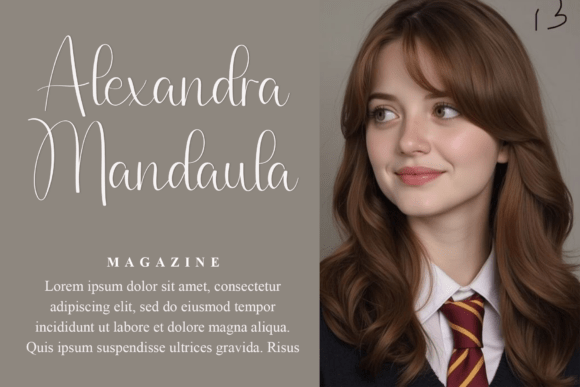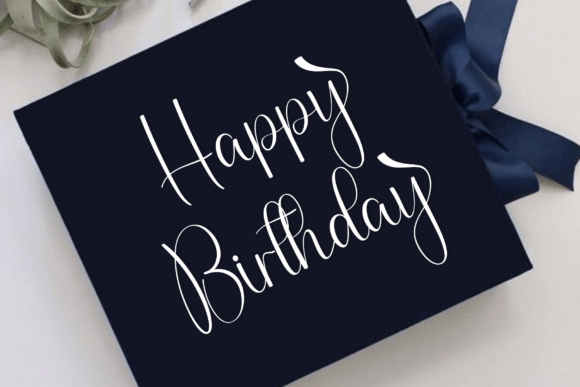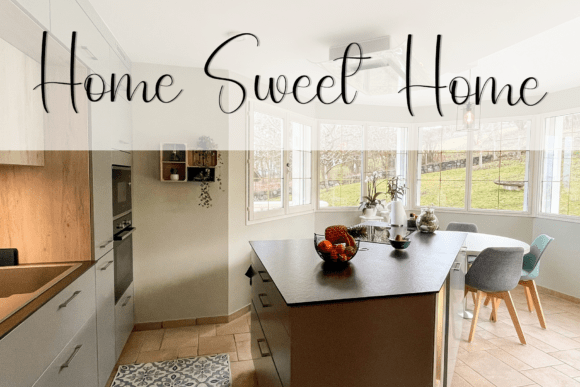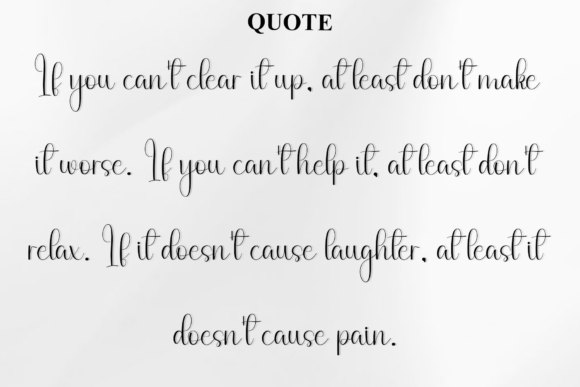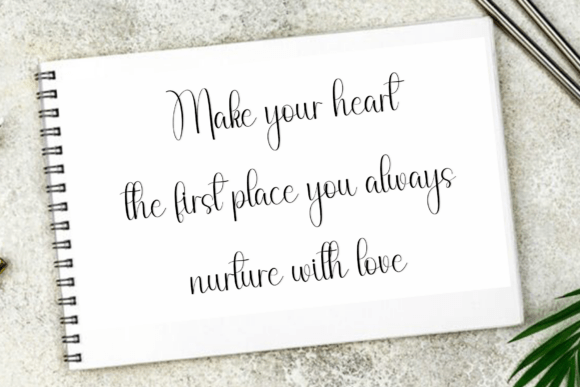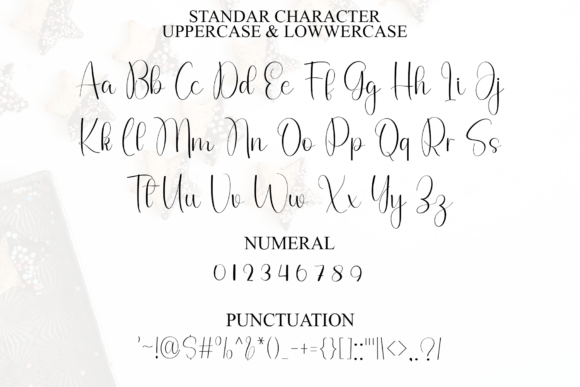
Introducing Cutie Baby Font: The Ultimate Holiday Typeface
The holiday season is upon us, and what better way to get into the spirit than with a festive and merry typeface? Look no further than Cutie Baby Font, a decorative font that captures the magic and wonder of the holiday season. With its whimsical flair and enchanting elements, Cutie Baby Font is perfect for adding a touch of nostalgia and cheer to your designs.
A Festive Font for the Holiday Season
Cutie Baby Font is a carefully crafted typeface that embodies the spirit of the holiday season. Its decorative elements and whimsical design make it perfect for a variety of holiday-themed projects, from greeting cards and gift tags to festive posters and social media graphics. Whether you’re a designer, crafter, or simply someone who loves the holiday season, Cutie Baby Font is sure to bring a smile to your face and a touch of magic to your designs.
Key Features of Cutie Baby Font
- Decorative Elements: Cutie Baby Font features a range of decorative elements, including intricate swirls, holly leaves, and snowflakes, that add a touch of festive flair to your designs.
- Whimsical Design: The font’s whimsical design makes it perfect for creating holiday-themed projects that are both fun and festive.
Cutie Baby Font is perfect for a variety of holiday projects, including:
- Greeting Cards: Add a touch of festive flair to your holiday greeting cards with Cutie Baby Font.
- Gift Tags: Create custom gift tags with Cutie Baby Font and add a personal touch to your gifts.
- Holiday Posters: Use Cutie Baby Font to create festive posters and social media graphics that capture the spirit of the holiday season.
- Crafting Projects: Cutie Baby Font is perfect for a variety of crafting projects, including scrapbooking, paper crafting, and more.
Why Choose Cutie Baby Font?
There are many fonts to choose from, but Cutie Baby Font stands out for its unique and festive design. Here are just a few reasons why you should choose Cutie Baby Font for your holiday projects:
- Unique Design: Cutie Baby Font features a unique and festive design that is sure to capture the spirit of the holiday season.
- Perfect for Holiday Projects: Cutie Baby Font is perfect for a variety of holiday projects, including greeting cards, gift tags, holiday posters, and more.
Cutie Baby Font is a festive and merry typeface that captures the spirit of the holiday season. With its decorative elements and whimsical flair, it adds a touch of enchantment to your designs. Perfect for greeting cards, gift tags, and holiday-themed projects, this font brings a cheerful and nostalgic ambiance to your words. Let your typography shine with the magic of Cutie Baby Font!